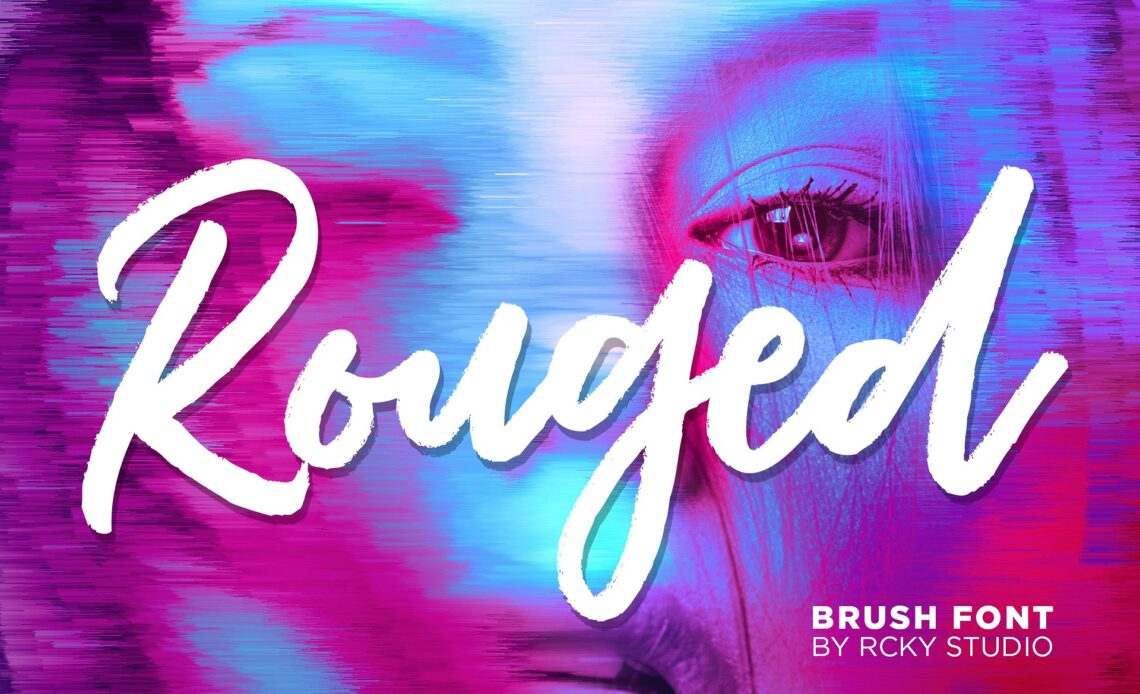
Unleash the captivating charm of Rouged Font, a script typeface forged in the fires of creativity, crafted to captivate and enchant. With its alluring curves and modern flair, Rouged Font stands tall as a visual masterpiece, inviting you to embrace your typographic adventures with unbridled passion.
Immerse yourself in the world of Rouged Font, a script font family that radiates elegance and sophistication. Its thick weight and clean curvature dance harmoniously, creating a symphony of visual delight. This font is not merely a tool; it's an artistic expression waiting to be unleashed upon your creative endeavors.
Welcome Rouged Brush, a commanding script that demands attention, a font that refuses to be ignored. Its bold strokes and confident presence will add an air of authority to your designs, leaving an unforgettable mark on your audience. Elevate your projects with Rouged Brush, the perfect choice for headlines, logos, branding, and any design that craves a touch of drama.
Rouged Font and Rouged Brush, hailing from the creative genius of rckystudio, are more than just fonts; they're expressions of artistry, tools that empower you to turn your creative visions into tangible realities. With their impeccable quality and versatility, these fonts are ready to elevate your designs to new heights.
Explore the endless possibilities that await with Rouged Font and Rouged Brush. Craft elegant invitations that exude timeless beauty, design logos that leave a lasting impression, create social media posts that captivate your audience, and embark on a journey of creative exploration that knows no bounds.